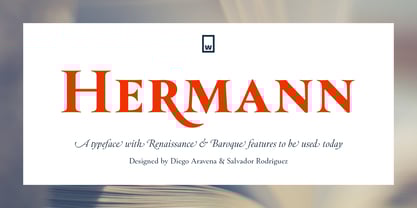
Hermann Font
Hermann Font is perfect for Germanic cultural projects, traditional European branding, heritage brewery marketing, classical music promotions, German restaurant identities, and Old World craftsmanship celebrations. This distinguished typeface excels in traditional bakery signage, European cultural centers, Oktoberfest event materials, and any application where Germanic tradition and European heritage create authentic cultural connections with classical elegance.
What makes Hermann Font so exciting is its exceptional ability to capture the strength and cultural dignity of Germanic traditions through robust, heritage-inspired letterforms that embody centuries of European craftsmanship. The font features solid construction, traditional proportions, and authoritative character shapes that reflect the reliability and quality associated with German engineering and cultural heritage. Its authentic character makes it perfect for brands celebrating genuine European traditions.
Hermann Font comes in a traditional family including Light, Regular, Medium, Bold, and Heavy weights. Each style features complete uppercase and lowercase character sets, Germanic symbols, heritage numerals, and traditional punctuation marks. The font family also includes blackletter alternates, cultural ligatures, and Old World variations that allow designers to create authentic European communications with historical accuracy and professional polish.
The font's Germanic character makes it particularly effective for traditional breweries, German restaurants, European cultural institutions, and heritage craft businesses. Its solid readability ensures that Hermann Font communicates clearly while maintaining its distinctive traditional personality. The font's ability to evoke heritage and cultural authenticity makes it an invaluable foundation for any project seeking to celebrate Germanic culture and connect with audiences through the timeless appeal of European tradition, quality craftsmanship, and the enduring strength of Germanic cultural values.